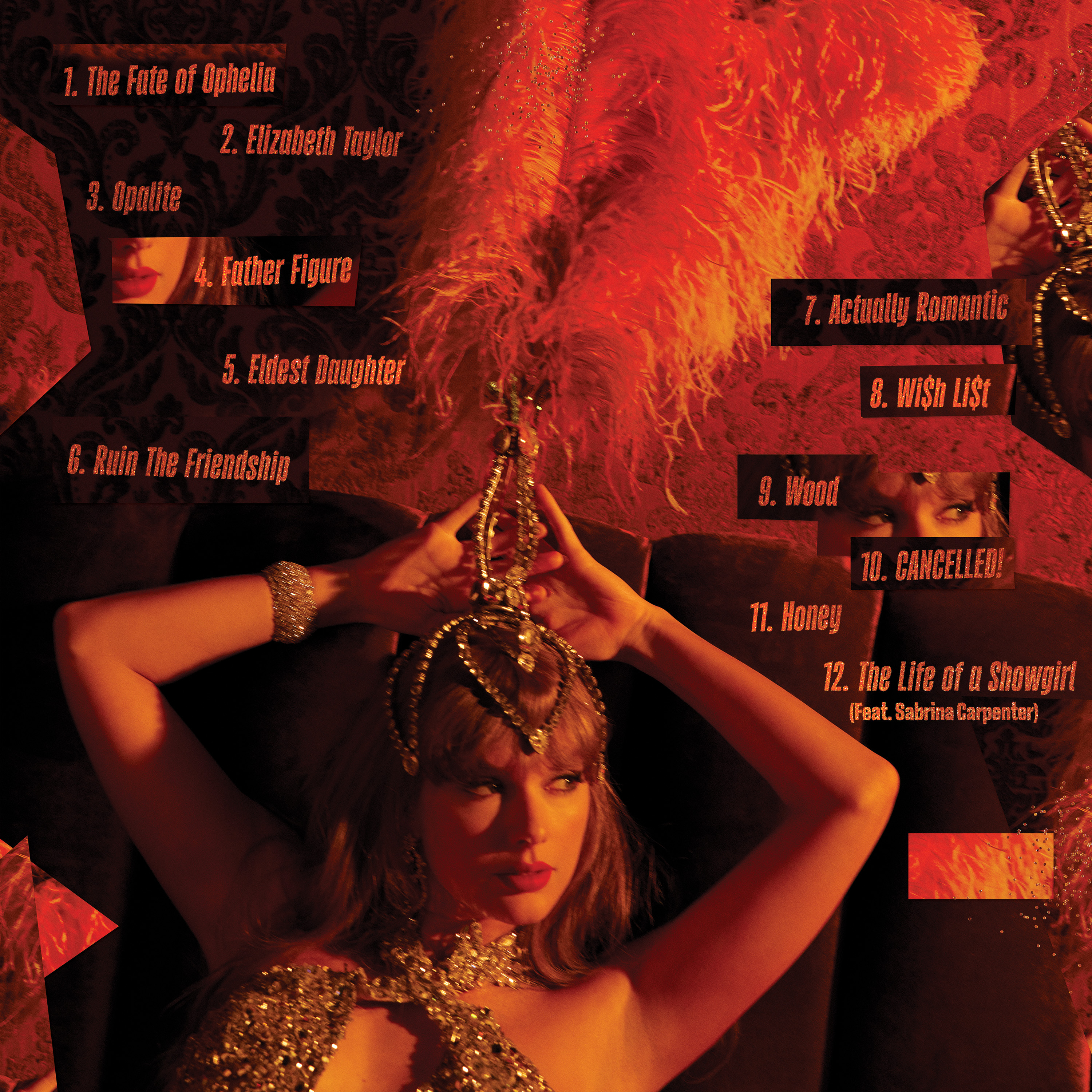
In Taylor Swift’s new era, even the typeface has a story
The bold typography behind 'The Life of a Showgirl' started life as a student project in Nicaragua. Its designer didn’t set out to make pop history – but the Swifties found him anyway.
Taylor Swift’s fandom, the Swifties, found Edwin Moreira before Moreira found Swift’s music. The designer, based in Managua, Nicaragua, created the font Gazzetta in 2021 as his final project while pursuing a degree in Type Design and Production at Tipografilia Estudios, Mexico. It went well for an academic project. The following year, he was offered a deal to distribute the font through TipoType in Uruguay, a company he still works with. That means it’s free to use for personal use through Adobe and can be licensed for commercial use. He was proud to see it used around the world. Then came Swift.
The album cover art for the singer’s 11th studio album, The Life of a Showgirl debuted online on August 13, features Swift in a risqué rhinestone body suit and jewels submerged in water. Surrounding her, in Gazzetta font, done in all capital letters in an orange glitter colour, is the album title.
Moreira describes the font as one that holds 'contradictions.' It’s an homage to the condensed typefaces once used in newspapers, contrasted with a 'contemporary and energetic character,' he says.
The first person to tell Moreira about the news was a former classmate, a Swiftie who recognised the font from school and wanted to check and see if it was true. Soon, Moreira began getting new followers on Instagram and receiving messages from fans who had traced the font back to him.
He believes that even just a few years ago, this level of interest in his work wouldn’t be present. 'I value that today's type design can enjoy a prominence within pop culture,' he says. While casual consumers have begun paying more attention to art direction, design, and styling, birthing a generation of armchair creative directors, it’s likely the interest is inherent to the Swifties, who will go to any depths to uncover potential lore about their idol.